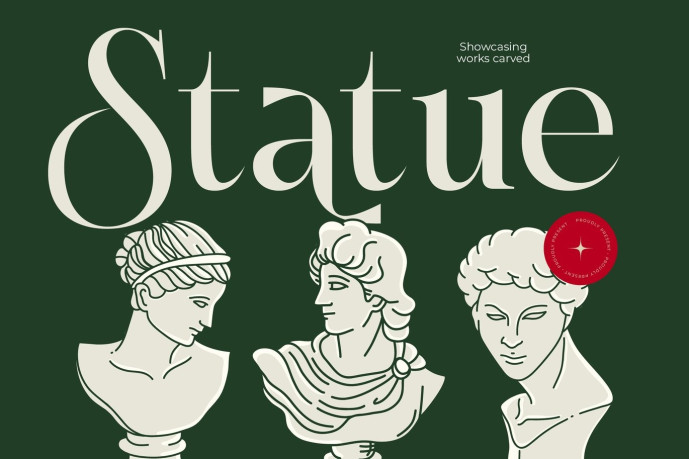
Karosa Font
Karosa Font is a modern alternate serif font that embodies timeless elegance and natural sophistication. With 62 alternates, 23 ligatures, and refined high-contrast strokes, this typeface blends classic with a contemporary twist — ideal for branding, fashion editorials, luxury packaging, and artistic logo designs.
Inspired by the organic flow of nature and elegant letter architecture, Karosa captures both strength and grace in every curve. Perfect for designers who seek a versatile serif font that balances creative charm with refined professionalism.